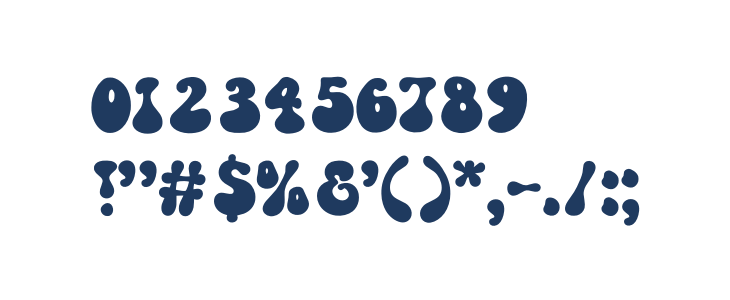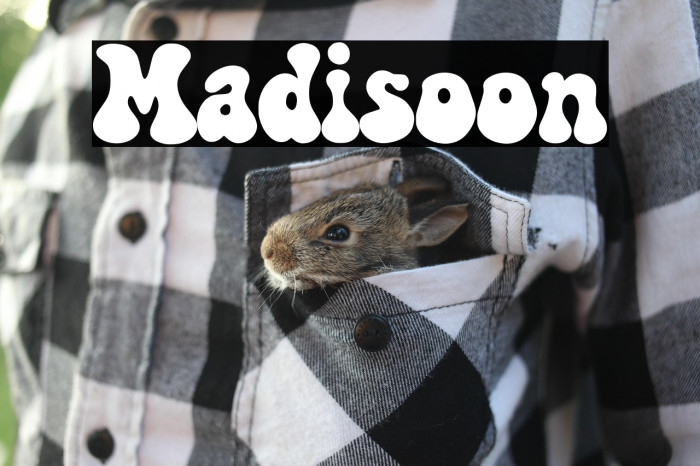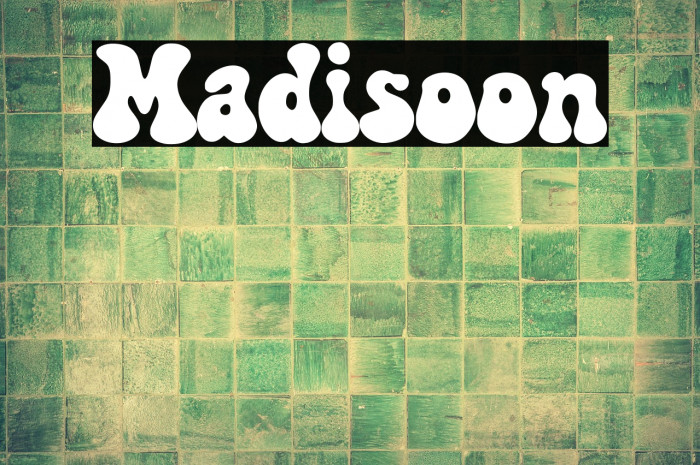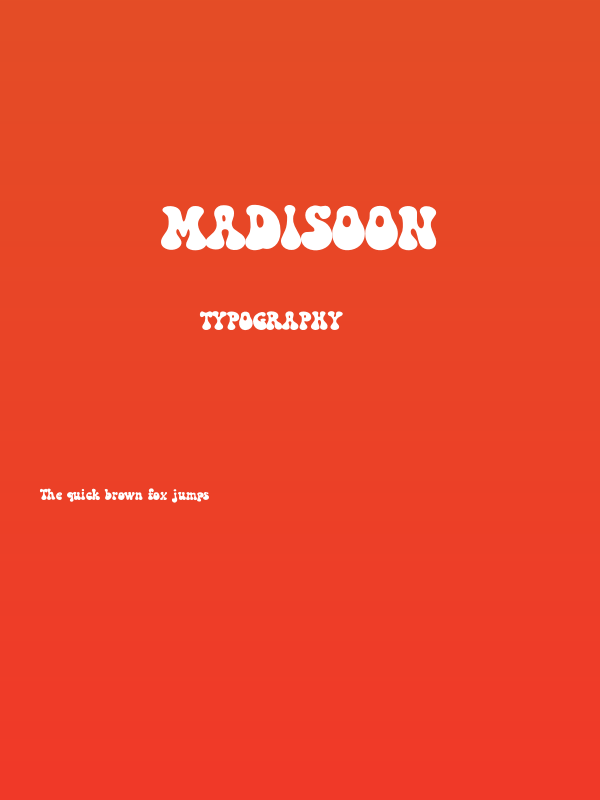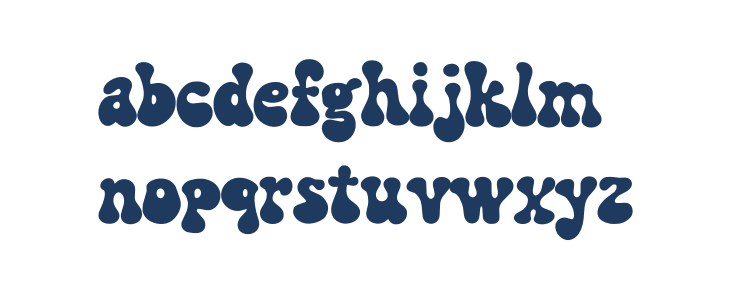
Madisoon Font
Madisoon Description
This font features a bold, playful design with a distinctly bubbly and organic appearance. The characters are rounded and exaggerated, giving them a whimsical and almost cartoon-like quality. The strokes are thick and consistent, creating a sense of weight and presence. The overall look is both fun and eye-catching, making it ideal for creative and informal applications. The font's unique style is characterized by its fluid shapes and lack of sharp edges, contributing to a friendly and approachable aesthetic.
Fonts by Tri Sakti Oktaviano
| Use Case | Logos, Posters, Creative projects |
| Proposed Projects | Ideal for children's books, playful branding, posters, and creative design projects. |